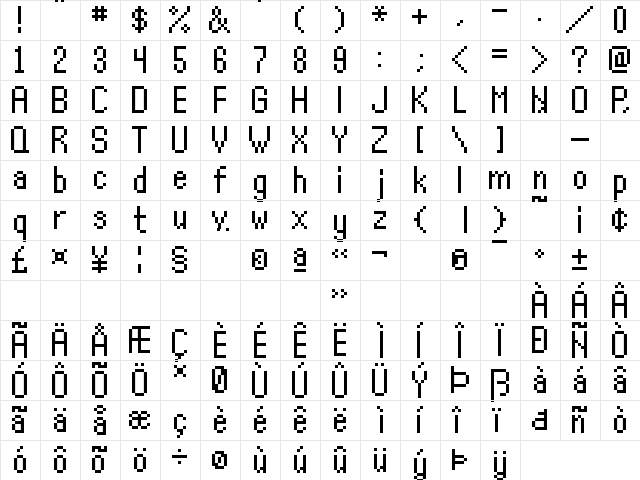
kharon4a_mini Regular
Design Context for kharon4a_mini Typeface
kharon4a_mini takes a measured approach to typography — its balanced proportions and neutral character make it a reliable workhorse for both digital and print work.